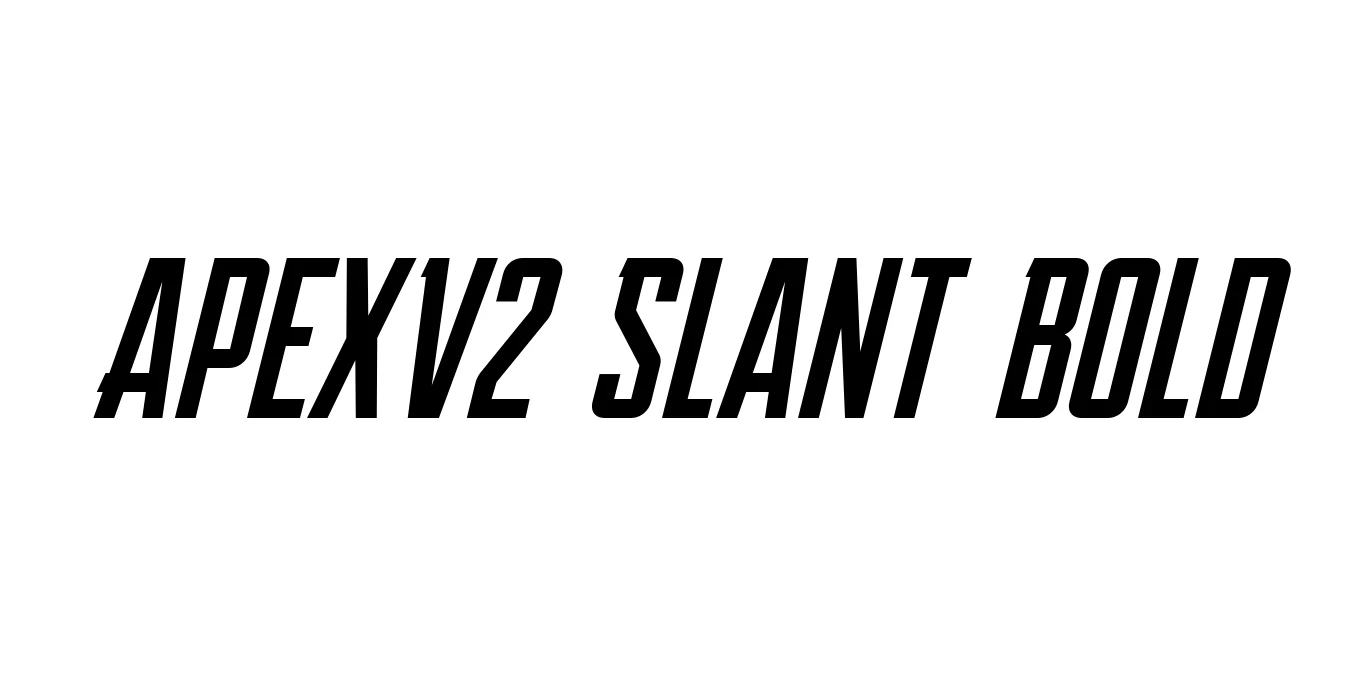
ApexV2 Slant Bold
Designed by Jeremy Nelson
| Font Name | ApexV2 Slant |
| Category | Sans-Serif / Display |
| Designer | Jeremy Nelson |
| Similar Fonts | Orbitron, Michroma, Exo 2 |
ApexV2 Slant Bold is a high-octane, modern sans-serif typeface meticulously engineered to project speed and technical precision. This specific iteration features a sharp, forward-leaning slant that amplifies the dynamic energy of its letterforms, making it a premier choice for high-performance branding. The bold weight ensures that every character commands attention, maintaining the geometric integrity that the Apex series is known for.
Refined for professional digital environments, the font offers superior kerning and balanced stroke widths to ensure maximum legibility at high speeds. It is frequently employed by tech innovators and motion graphic designers seeking a typeface that balances futuristic aesthetics with reliable structural stability. Whether used for large-scale displays or intricate interface elements, ApexV2 Slant Bold remains a versatile tool for contemporary visual communication.
ApexV2 Slant Bold Best Uses
Ideal for eSports team logos and high-impact streaming overlays.
Perfect for professional athletic apparel and stadium signage.
Excellent for modern corporate identities and software interfaces.
Optimized for fast-paced title sequences and dynamic digital ads.